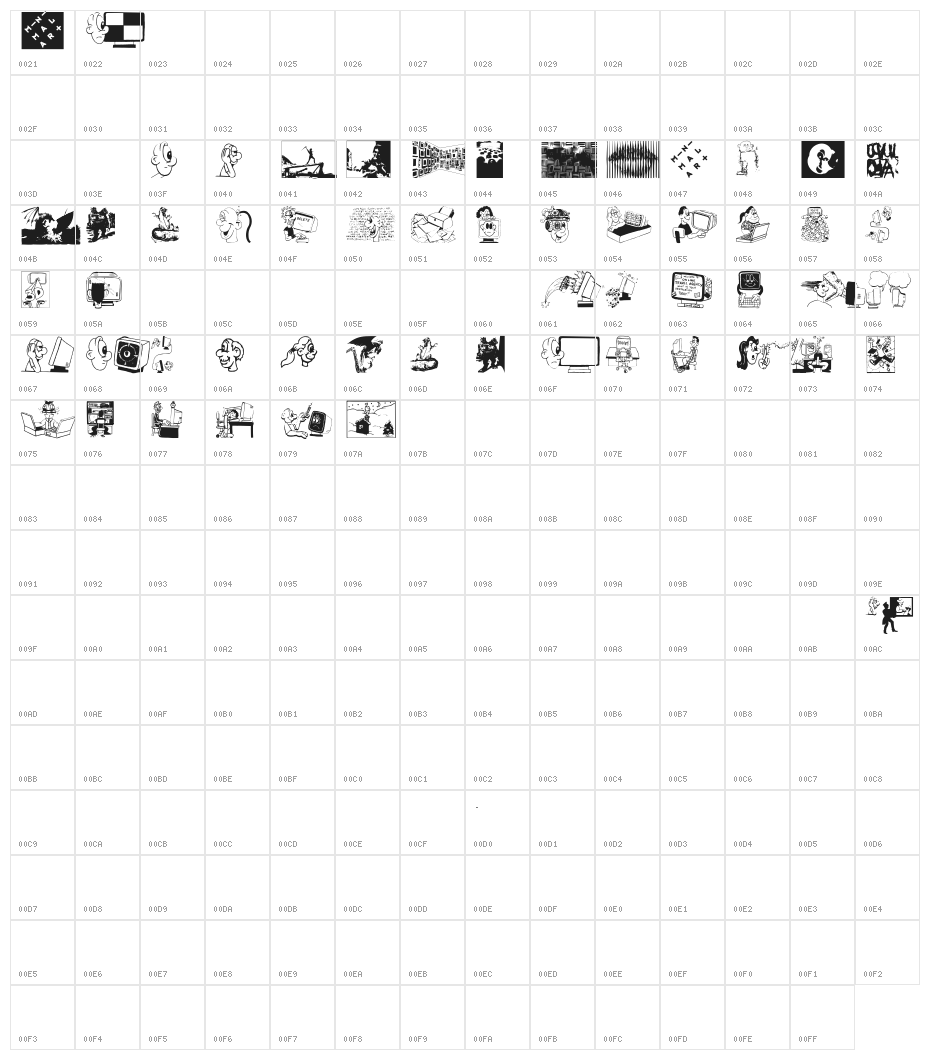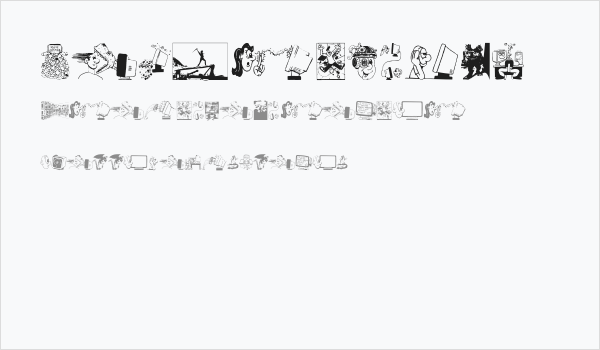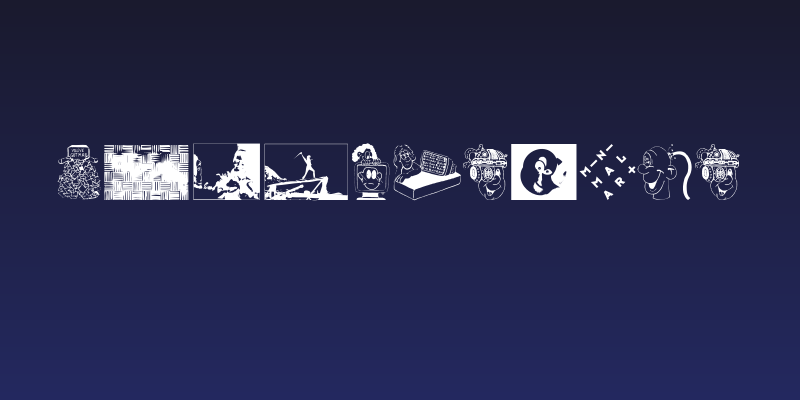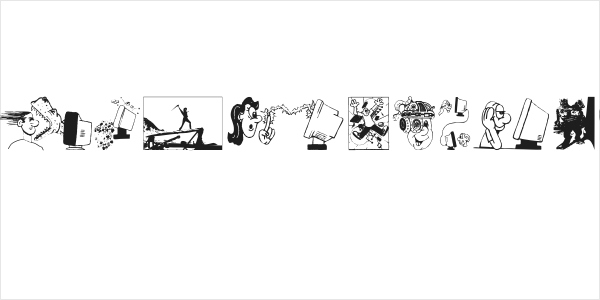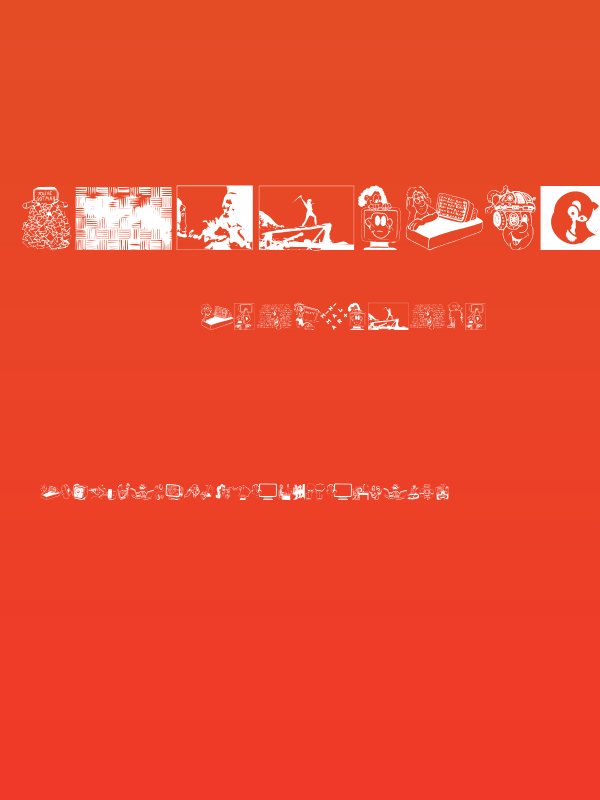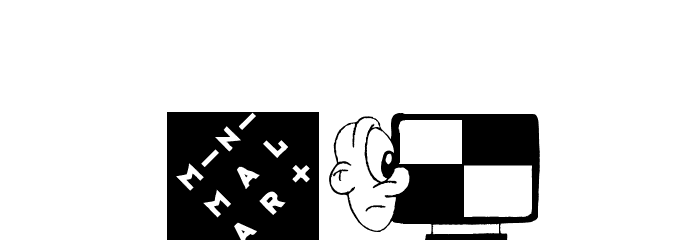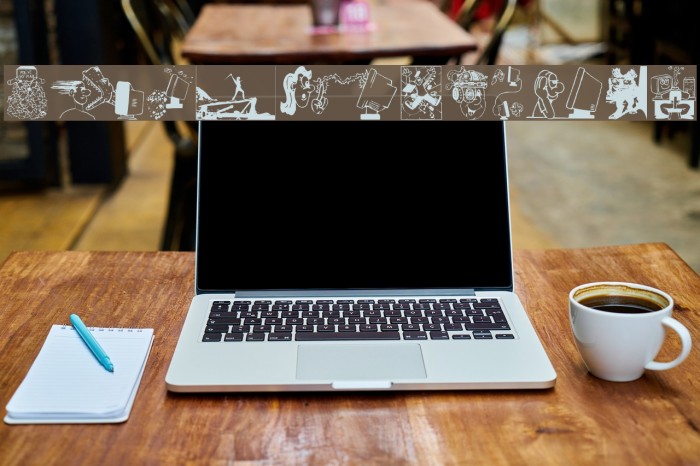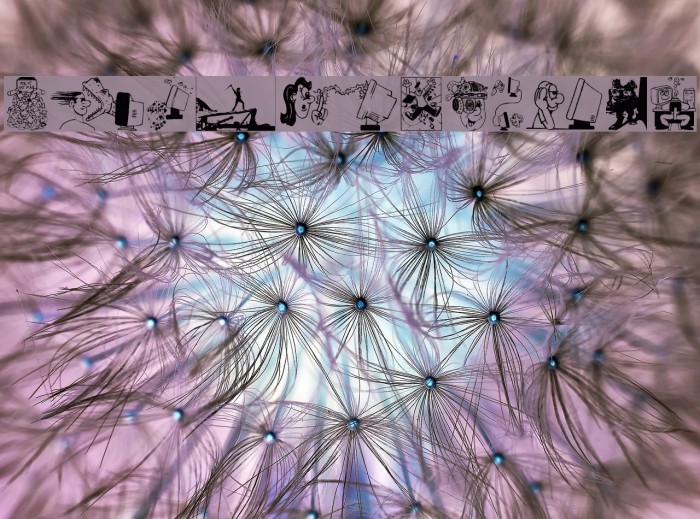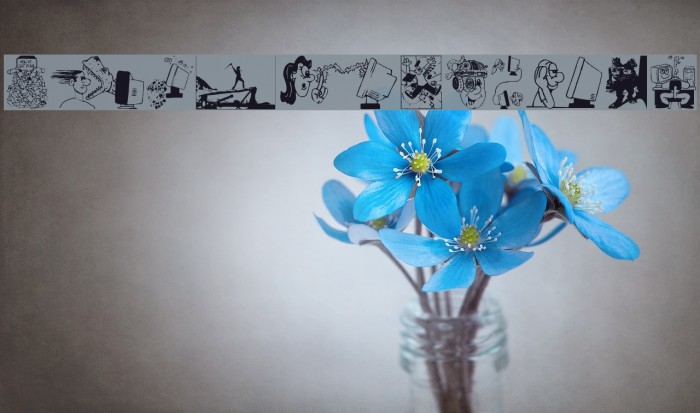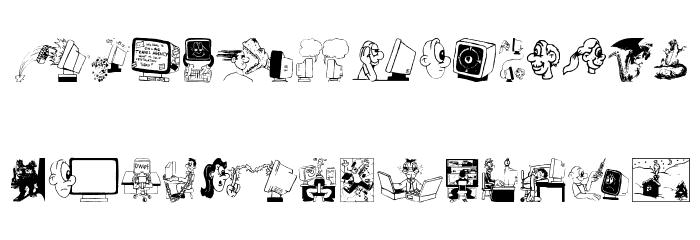
WebArtSigns Font
WebArtSigns Description
This is not a traditional font but rather a collection of artistic and illustrative designs. Each character is represented by a unique and whimsical illustration, often depicting scenes or objects related to technology, art, or abstract concepts. The designs are highly detailed and creative, making them more suitable for decorative purposes rather than standard text representation. The style is playful and imaginative, with a focus on visual storytelling through each character.
| Use Case | Artistic displays, creative projects, educational materials. |
| Proposed Projects | Ideal for creative projects such as posters, art installations, or educational materials where visual storytelling is key. |